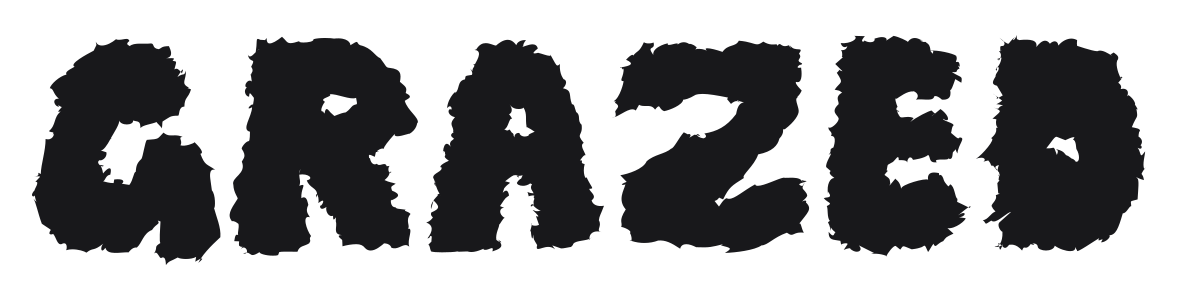
Grazed
Grazed is a bold, heavily eroded sans-serif where every character looks like it has been scraped and worn down to a rough, gritty texture. The distressed surface treatment is dense and consistent, giving the font a raw, underground energy that reads clearly even at headline sizes. Strong candidate for horror, metal, or street-culture contexts.